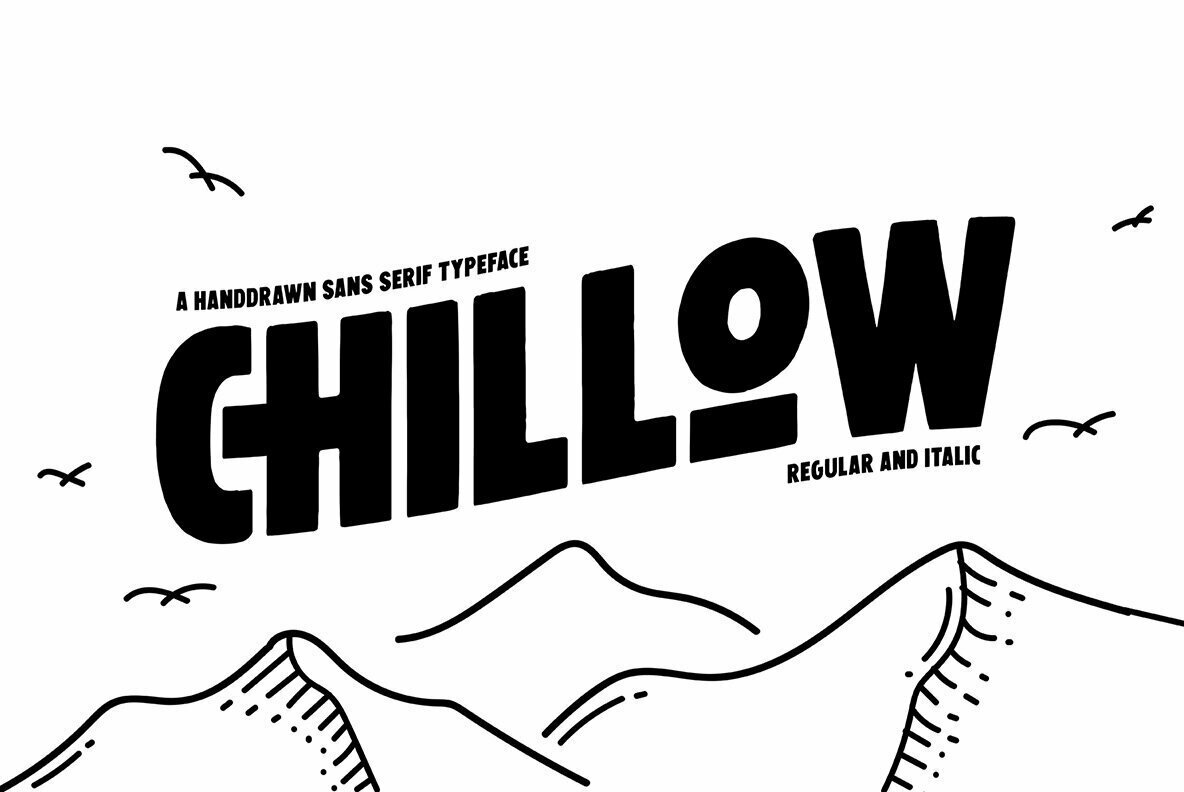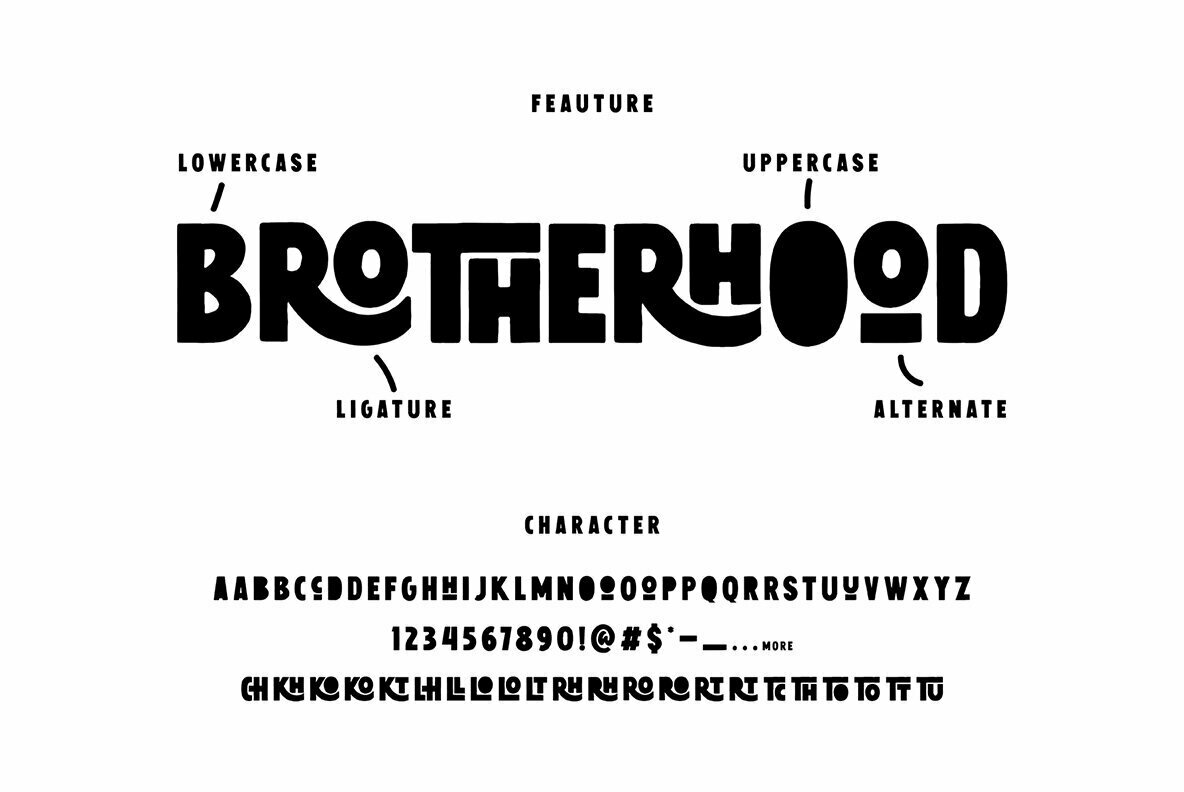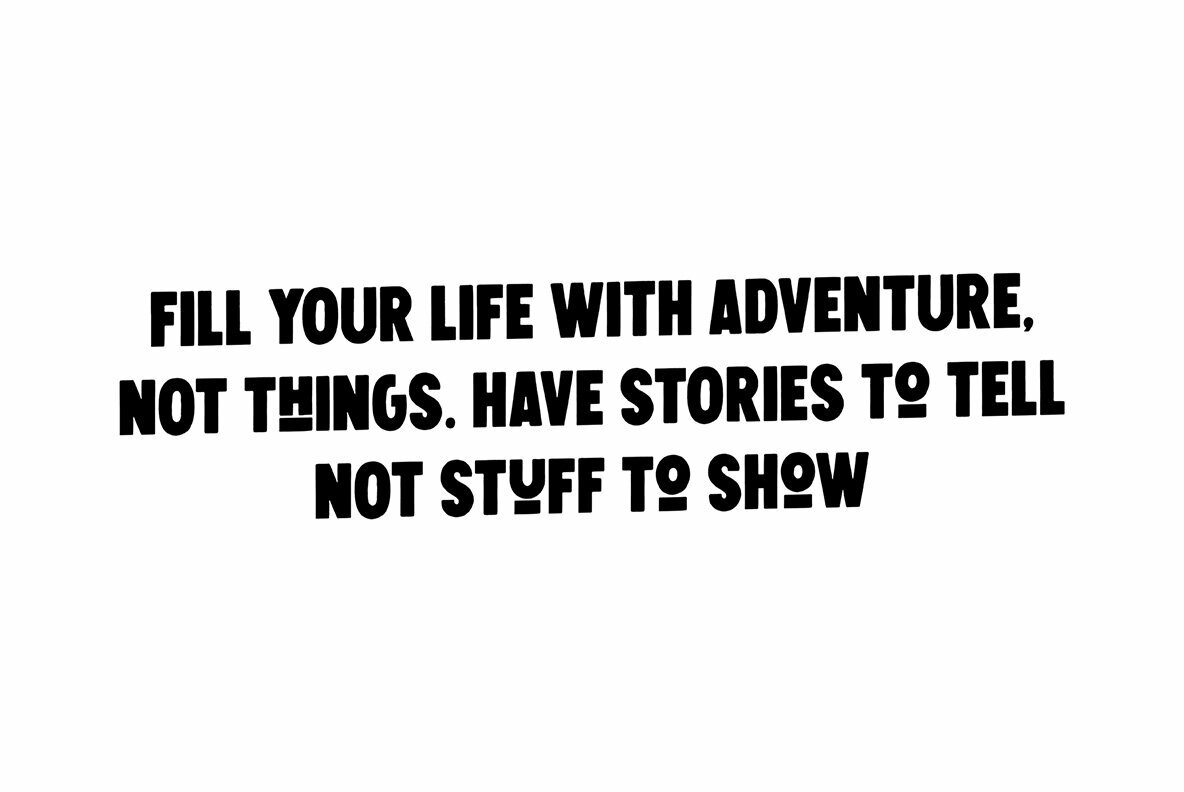
Chillow: Bold Hand-Drawn Sans Serif
Chillow delivers a robust and vintage character, making it a captivating choice for designers seeking a bold, hand-drawn sans serif typeface. Its rough texture adds an authentic touch that suits various creative ventures, from logos to typography projects.
• Two Styles – Available in both regular and italic to suit diverse needs.
• Alternate Characters & Ligatures – Offers design flexibility and uniqueness.
• Vintage Appeal – Perfect for badges, vintage designs, and branding projects.